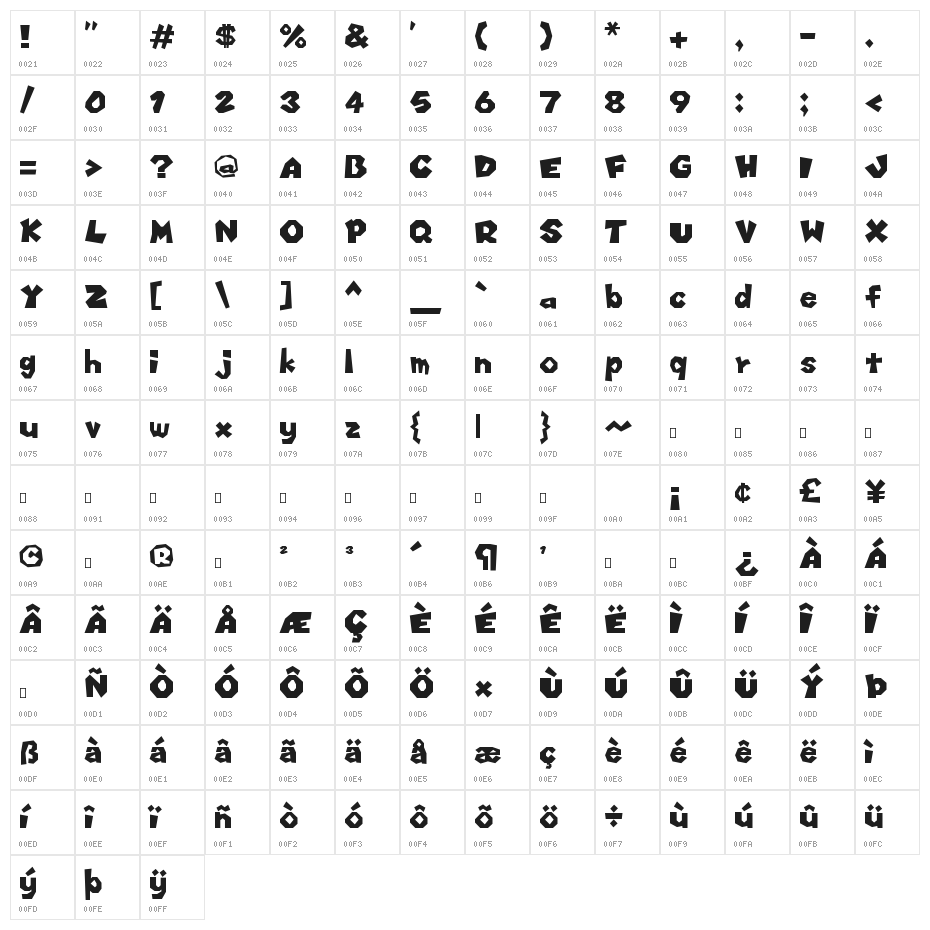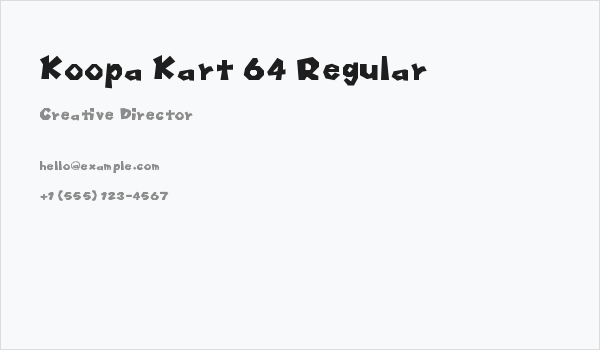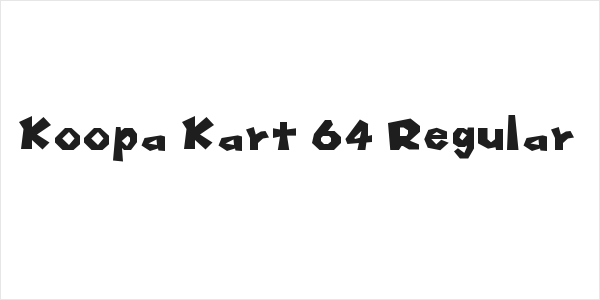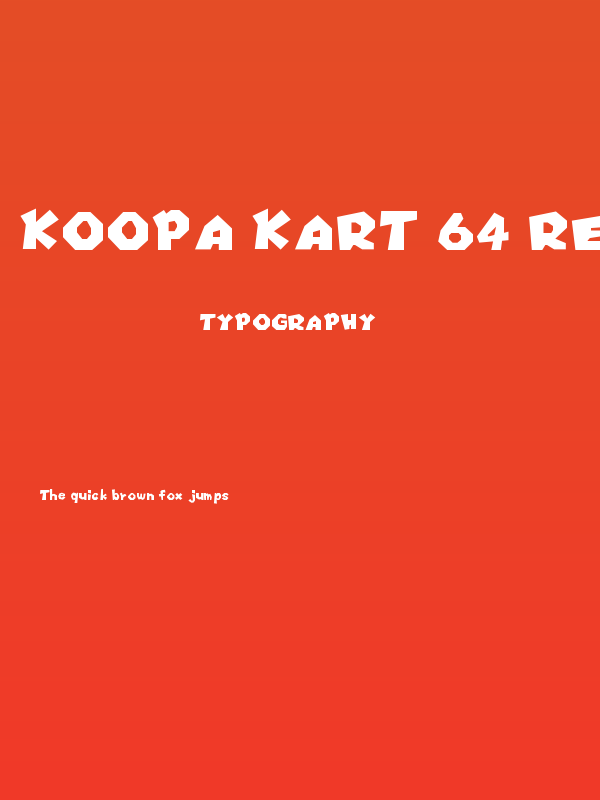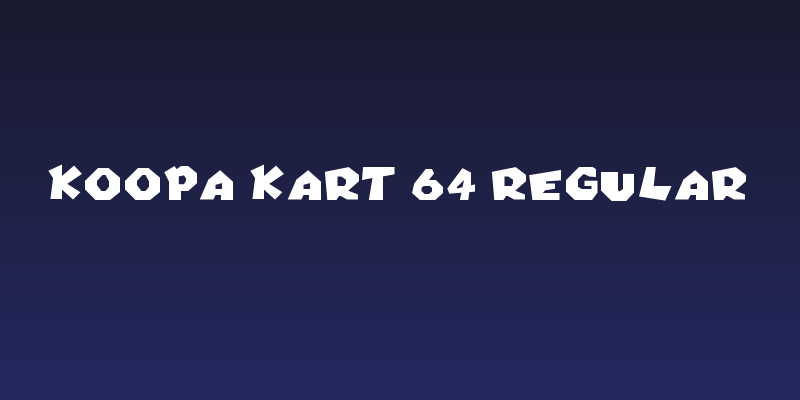
Koopa Kart 64 Regular Font
Koopa Kart 64 Regular Description
This font features a playful and bold design with irregular, jagged edges that give it a dynamic and energetic feel. The uppercase and lowercase letters maintain a consistent style, with each character having a unique, angular form that adds to the overall quirky aesthetic. The numbers and special characters follow the same design principles, ensuring a cohesive look across all elements. The font's boldness and distinctive style make it stand out, making it ideal for projects that require a fun and eye-catching typeface.
| Overall Style | Playful, Energetic, Quirky |
| Proposed Projects | Great for video game titles, children's books, posters, and any project needing a fun, energetic typeface. |